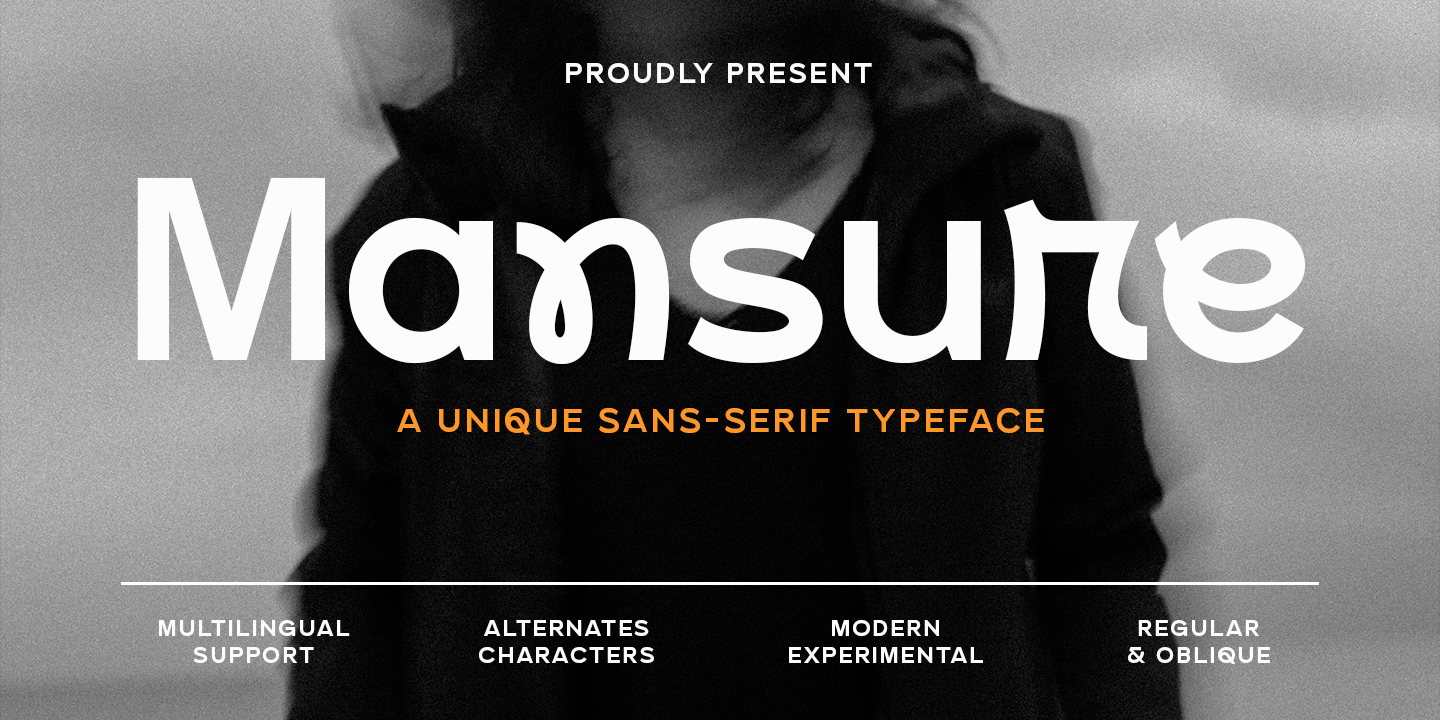
Introducing Mansure Font Free Download – a bold and confident display typeface that commands attention with its powerful strokes and contemporary Arabic-inspired aesthetic. This striking font blends modern typography with cultural heritage, perfect for projects requiring strong visual impact and Middle Eastern elegance.
Why Mansure Font Stands Out
Mansure Font Free Download delivers:
Bold Arabic-inspired letterforms with modern twist
Perfect balance of cultural authenticity and contemporary design
Excellent readability at display sizes
Versatile styling for both Eastern and Western markets
Mansure Font Free Download Technical Features:
Uppercase Latin characters with Arabic design influences
Numbers and basic punctuation
Special glyph alternates for custom looks
Optimized for large-scale applications
Works across all major design platforms
Ideal Applications:
Middle Eastern brand identities
Cultural event promotions
Restaurant menus and food packaging
Travel/tourism campaigns
Bilingual marketing materials
Design Tip: Pair with geometric patterns and warm earth tones for authentic Middle Eastern aesthetic!